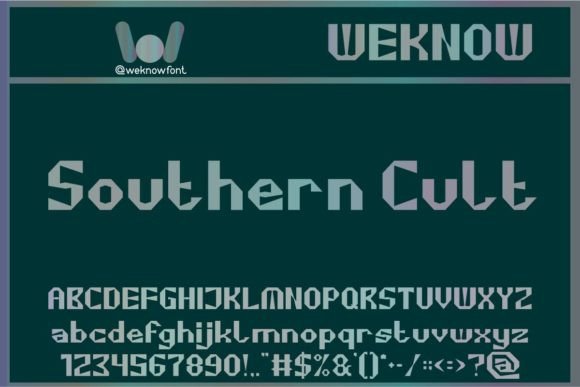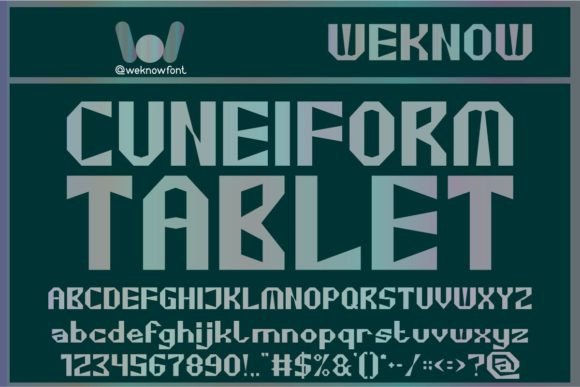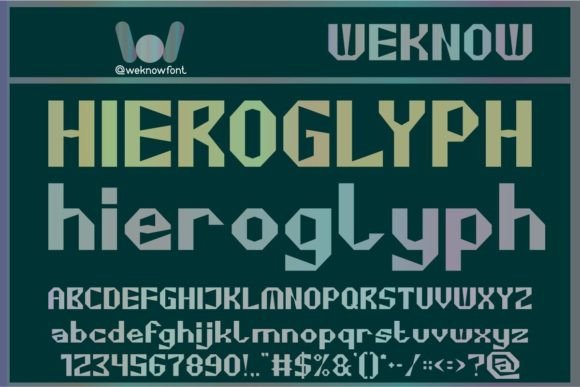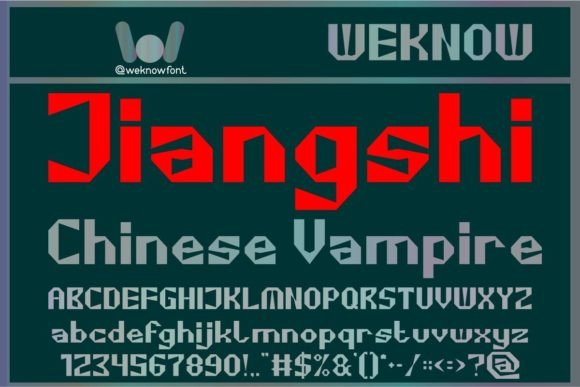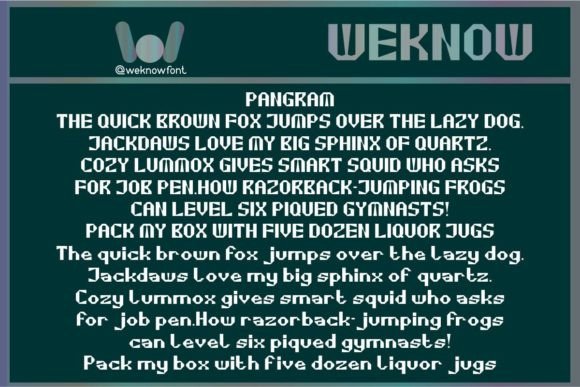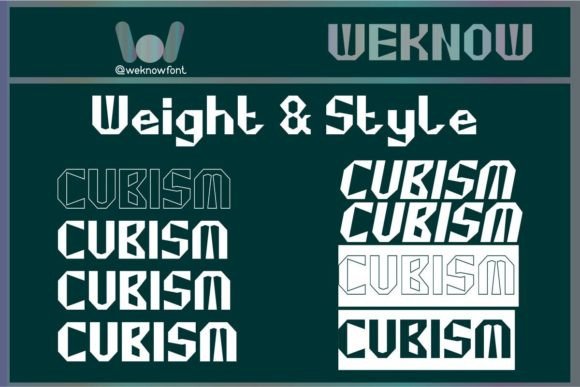
Cubism Font: Elevate Your Designs with a Modern Edge
Are you looking for a font that can add a touch of modernity and sophistication to your designs? Look no further than the Cubism font. This artistically rendered font features crisp, flat corners that are both sharp and triangular, making it a striking choice for crafting unique logos, logotypes, and headlines.
A Versatile Display Font
Cubism is a versatile display font that can elevate corporate and brand identities with its modern edge. Its unique design makes it perfect for a wide range of applications, from apparel and entertainment to publishing and digital media. Whether you’re looking to create a bold logo, a catchy title, or a captivating visual, Cubism is the perfect choice.
Perfect for the Apparel Industry
The Cubism font is particularly well-suited for the apparel industry, where style and fashion are paramount. Its crisp, geometric lines and sharp corners evoke a sense of haute couture, making it perfect for creating labels, tags, and branding materials that exude luxury and sophistication. With Cubism, you can give your apparel designs a high-end look that’s sure to turn heads.
Elevate Your Publishing Projects
Cubism is also a great choice for publishing projects, including magazines, books, and comic strips. Its bold, graphic lines make it perfect for titles, headings, and pull quotes, adding a touch of visual interest to your pages. Whether you’re creating a sleek and modern magazine or a bold and playful comic book, Cubism is the perfect font to help you make a statement.
Shine in the Entertainment Sphere
The Cubism font is also well-suited for the entertainment sphere, including music, movies, and games. Its bold, eye-catching design makes it perfect for creating posters, flyers, and other promotional materials that need to grab attention. With Cubism, you can add a touch of glamour and sophistication to your entertainment projects, helping to elevate your brand and attract new fans.
Enhance Your Digital Presence
In today’s digital age, having a strong online presence is more important than ever. The Cubism font can help you enhance your digital footprint, whether you’re creating content for YouTube, Instagram, or your website. Its bold, modern design makes it perfect for creating eye-catching thumbnails, titles, and headings that will help you stand out in a crowded online landscape.
Key Features of Cubism Font
- Crisp, flat corners: Cubism’s unique design features crisp, flat corners that are both sharp and triangular, giving it a bold and modern look.
- Versatile: Cubism is a versatile display font that can be used for a wide range of applications, from logos and branding to headlines and titles.
- Modern edge: Cubism’s geometric lines and sharp corners give it a modern edge that’s perfect for creating sleek and sophisticated designs.
- Haute couture vibe: Cubism’s design evokes a sense of haute couture, making it perfect for apparel and fashion projects.
Tips for Using Cubism Font
- Use it boldly: Cubism is a bold font, so don’t be afraid to use it boldly. It’s perfect for creating eye-catching headlines and titles.
- Experiment with colors: Cubism looks great in a variety of colors, so don’t be afraid to experiment and find the perfect color to match your brand.
- Pair it with other fonts: Cubism can be paired with other fonts to create a unique and interesting look. Try pairing it with a sans-serif font for a bold and modern look.
In conclusion, the Cubism font is a versatile and modern display font that’s perfect for designers and crafters looking to add a touch of sophistication and elegance to their designs. Its unique design, crisp lines, and sharp corners make it perfect for a wide range of applications, from apparel and entertainment to publishing and digital media. So why not give Cubism a try and see how it can elevate your designs?